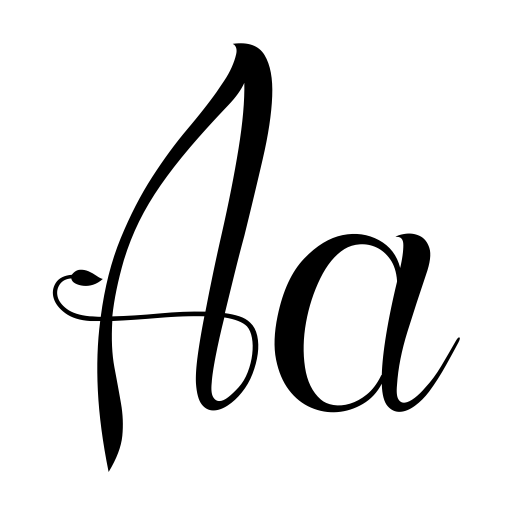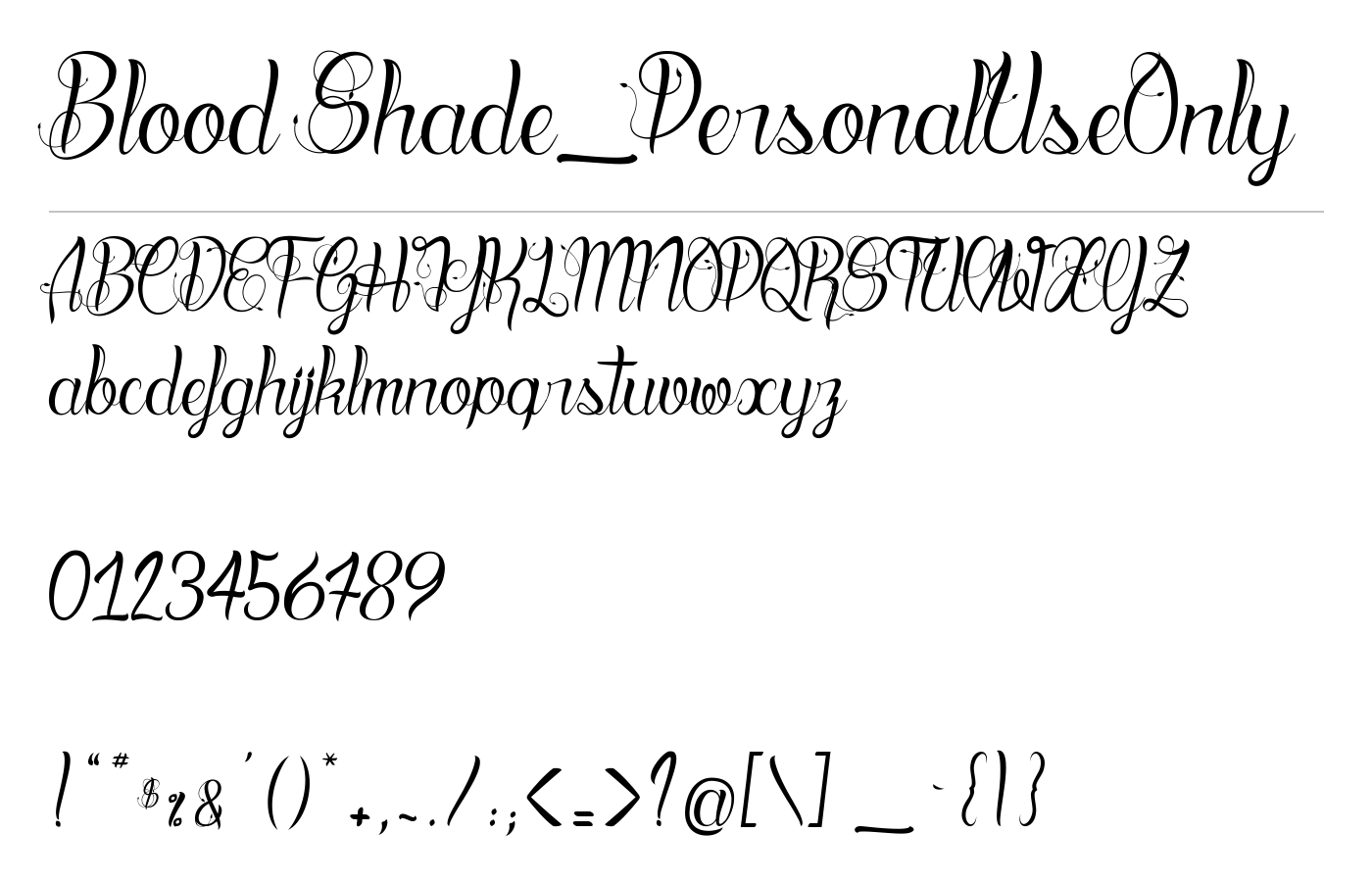
Blood Shade_PersonalUseOnly is a delicate and elegant script font with flowing, ornate letterforms that feature thin strokes and graceful swashes. Its high contrast and decorative flourishes give it a refined, vintage feel perfect for luxury branding, invitations, or artistic headlines. This font works best in designs that seek a sophisticated and stylish touch with a classic handwritten charm.
Blood Shade_PersonalUseOnly Font
About Blood Shade_PersonalUseOnly Font